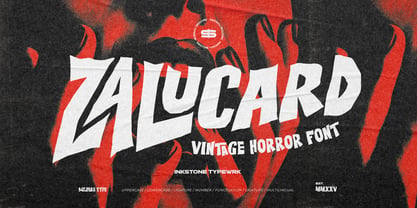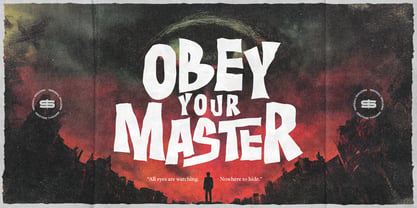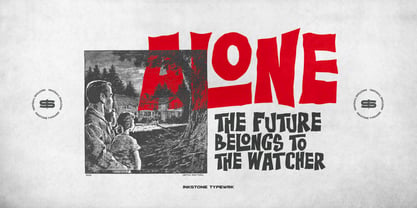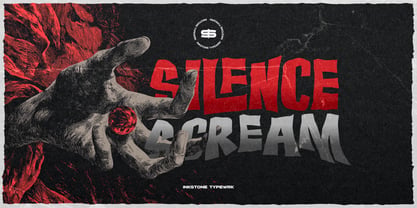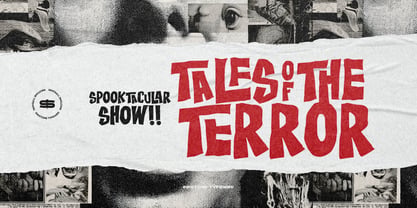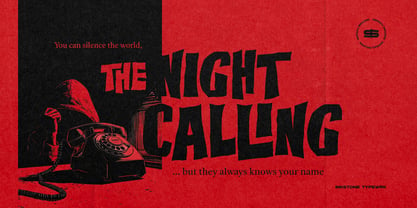
Zalucard
by Inkstone Typewrk
The Zalucard Font Family was designed by Andhika Pradana, Yono Asmadiputra and published by Inkstone Typewrk. Zalucard contains 1 styles. More about this family
Zalucard - Vintage Horror Font Step into the shadows with Zalucard, a spine-chilling vintage horror font brewed for the bold. Inspired by 70s cult classics, haunted pulp covers, and gothic underground zines, Zalucard oozes retro charm with a modern bite. This typeface doesn’t whisper — it howls. Crafted for creatives who crave edge, Zalucard delivers high-voltage character, gritty texture, and blood-dripping style that screams Halloween vibes all year round. Think old-school horror meets indie rebellion — a perfect match for poster designs, band merch, tattoo flash, book covers, and vintage-themed branding that doesn't play it safe.
Designers: Andhika Pradana, Yono Asmadiputra
Foundry: Inkstone Typewrk
Inkstone Typewrk is a bold and visionary type foundry based in Surabaya, Indonesia. Established in 2025, we are multidisciplinary designers driven by fearless ideas and stylish execution. We craft letterforms with attitude—sculpting typefaces that carry a rebellious edge. We don’t just design fonts—we shape type.Founded by Yono Asmadiputra and Andhika Pradana, a dynamic duo united by their love for expressive typography, Inkstone Typewrk is built on passion, collaboration, and a shared obsession for detail. Their synergy fuels a creative playground where bold ideas meet refined craftsmanship.